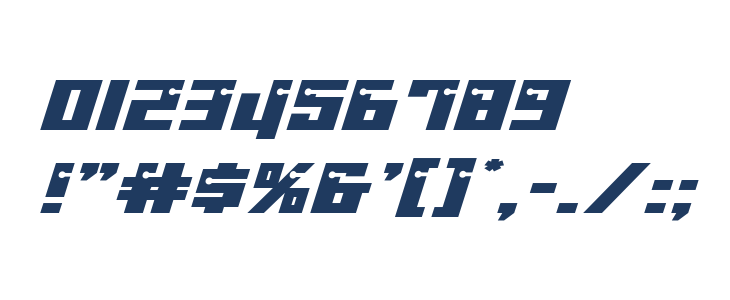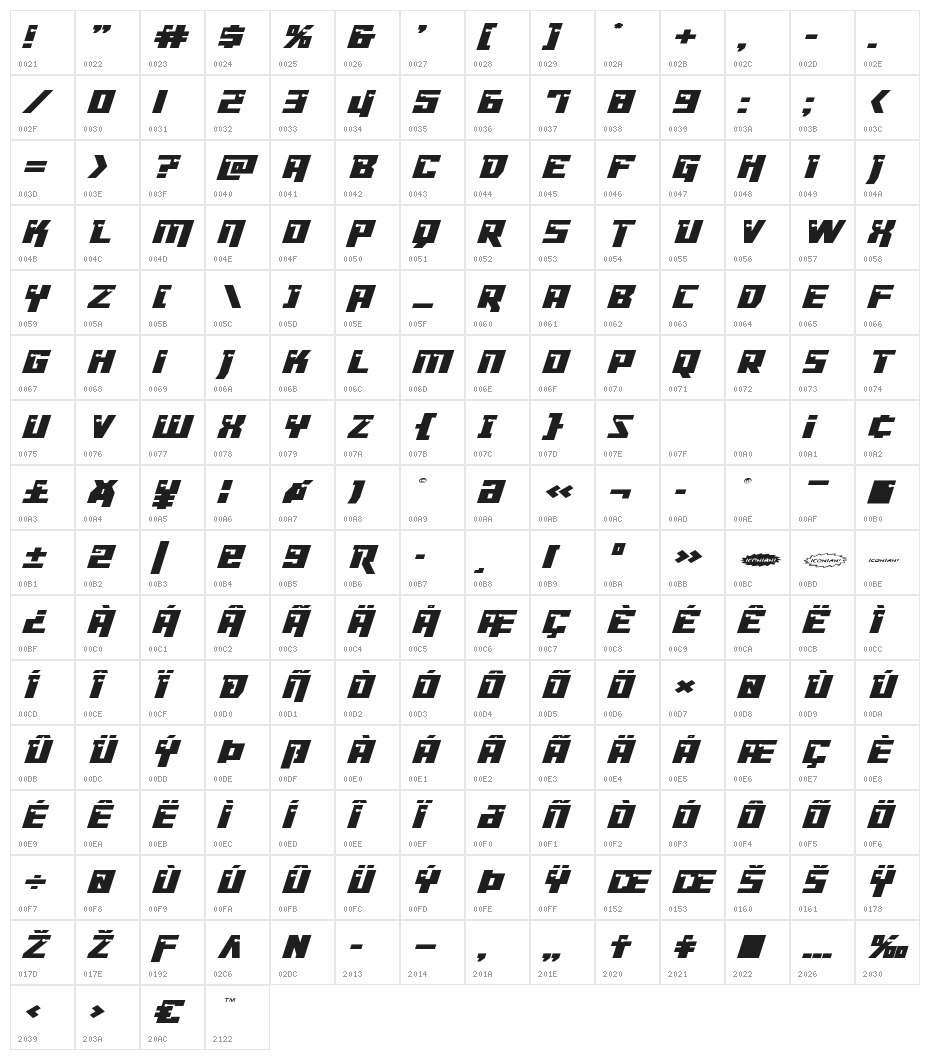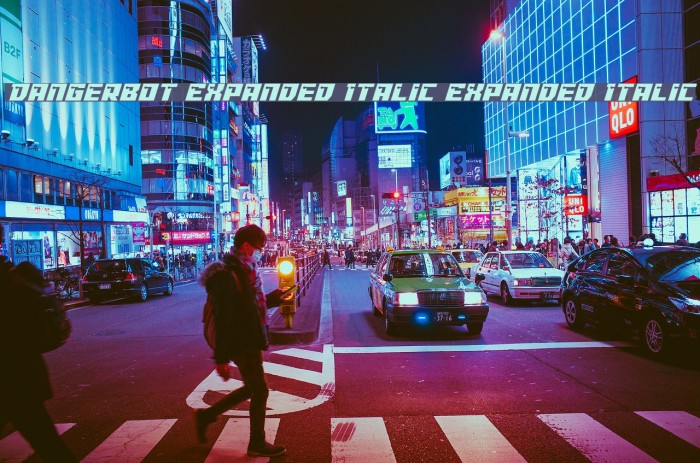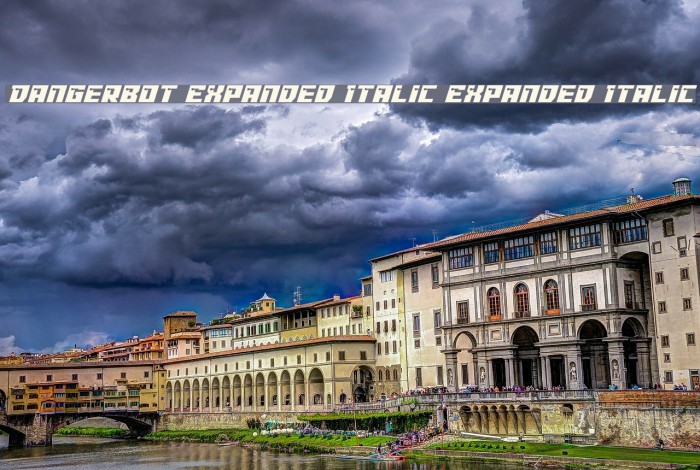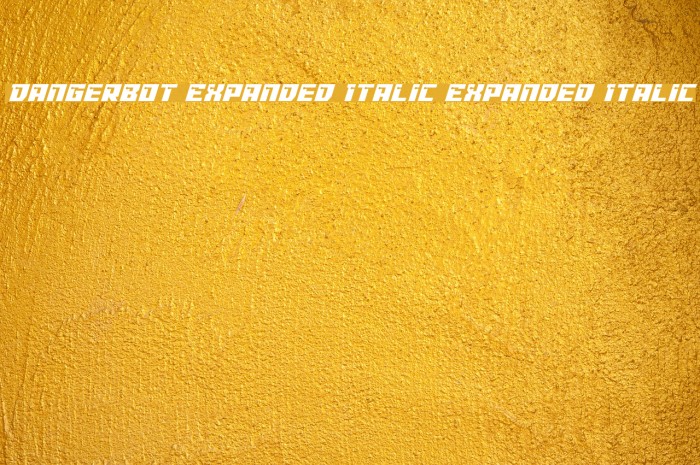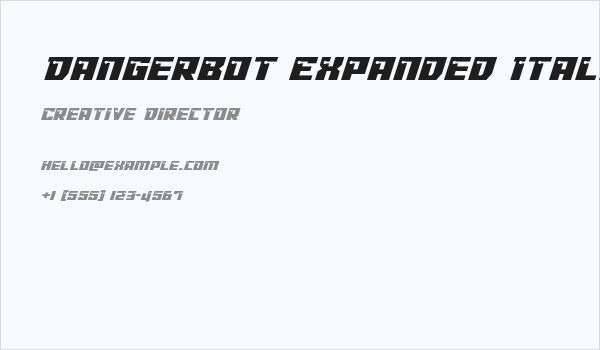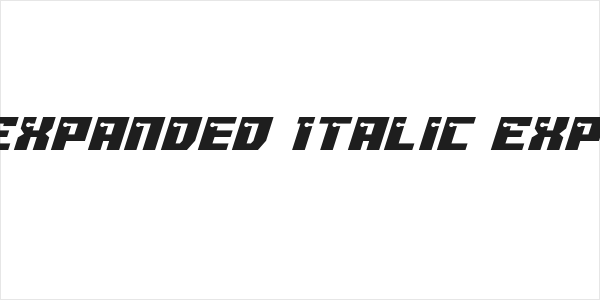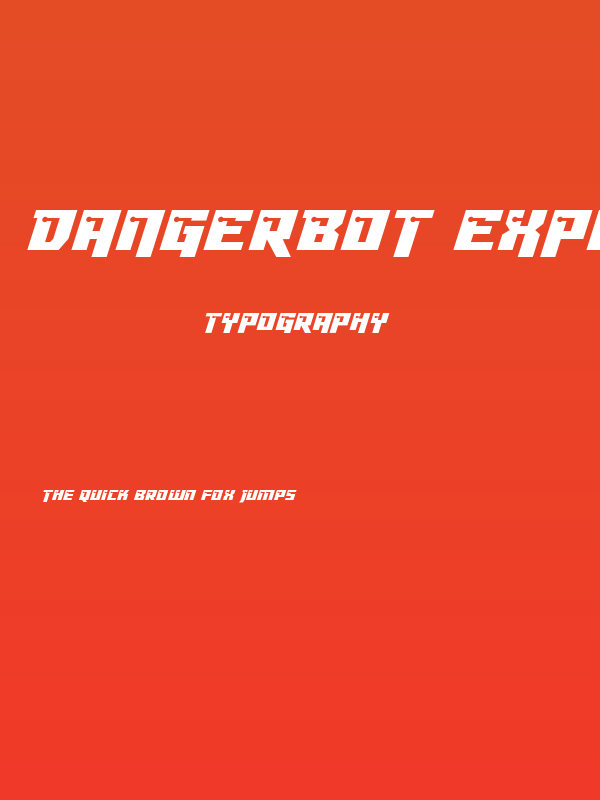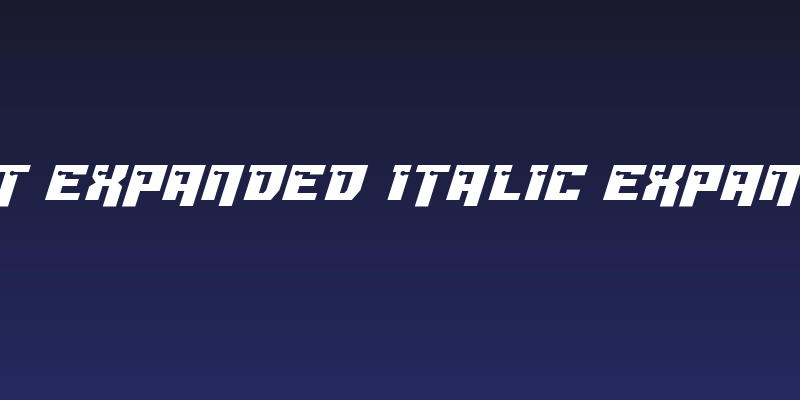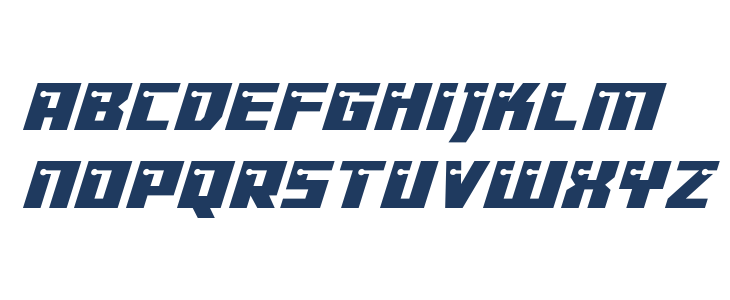
Dangerbot Expanded Italic Font
Dangerbot Expanded Italic Description
This font features a bold, futuristic design with an expanded and italicized style. The characters are angular and geometric, giving a sense of movement and dynamism. The uppercase and lowercase letters maintain a consistent width, contributing to a cohesive look. Numbers and special characters are designed with the same bold, angular aesthetic, ensuring uniformity across all glyphs. The font's strong presence makes it suitable for impactful visual statements.
| Proposed Projects | Ideal for sci-fi themed projects, video game titles, tech branding, and dynamic posters. |